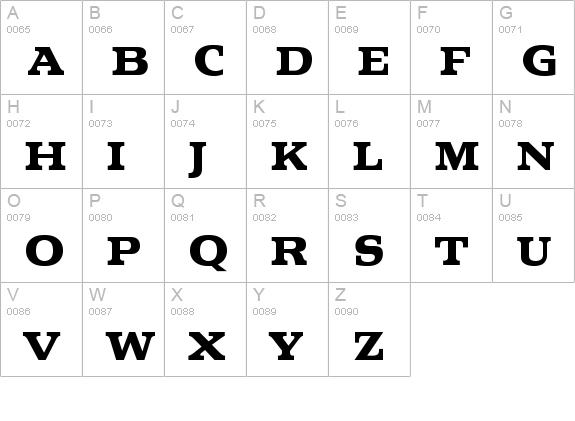
Penthouse-ExtraBold is an extra-heavy, attention-grabbing variant in the Penthouse typeface family \xE2\x80\x94 well suited to high-impact headlines, posters, and bold branding.
Introducing Penthouse-ExtraBold, a remarkable font that exudes confidence and power with its bold and striking design. This font is perfect for making a bold statement, commanding attention, and leaving a lasting impression. Penthouse-ExtraBold stands out from the crowd with its unique combination of sleek lines and strong curves, creating an eye-catching display of elegance and style. It effortlessly captures the essence of modernity while maintaining a timeless appeal. With its generous letter spacing and impeccable readability, Penthouse-ExtraBold ensures that your message is delivered with utmost clarity and impact. Whether it's for headlines, titles, logos, or any other design project, this font will elevate your work to new heights. What's even better is that Penthouse-ExtraBold is freely available to download at FontsMarket.com. This means you can easily access this exceptional font without any cost or hassle. Experience the freedom to unleash your creativity and explore the endless possibilities that Penthouse-ExtraBold offers. Download Penthouse-ExtraBold today and witness the transformative power it brings to your designs. Let its boldness and sophistication elevate your projects, leaving a lasting impression on your audience. Don't miss out on this opportunity to add a touch of elegance and professionalism to your work. Get Penthouse-ExtraBold now, only at FontsMarket.com.